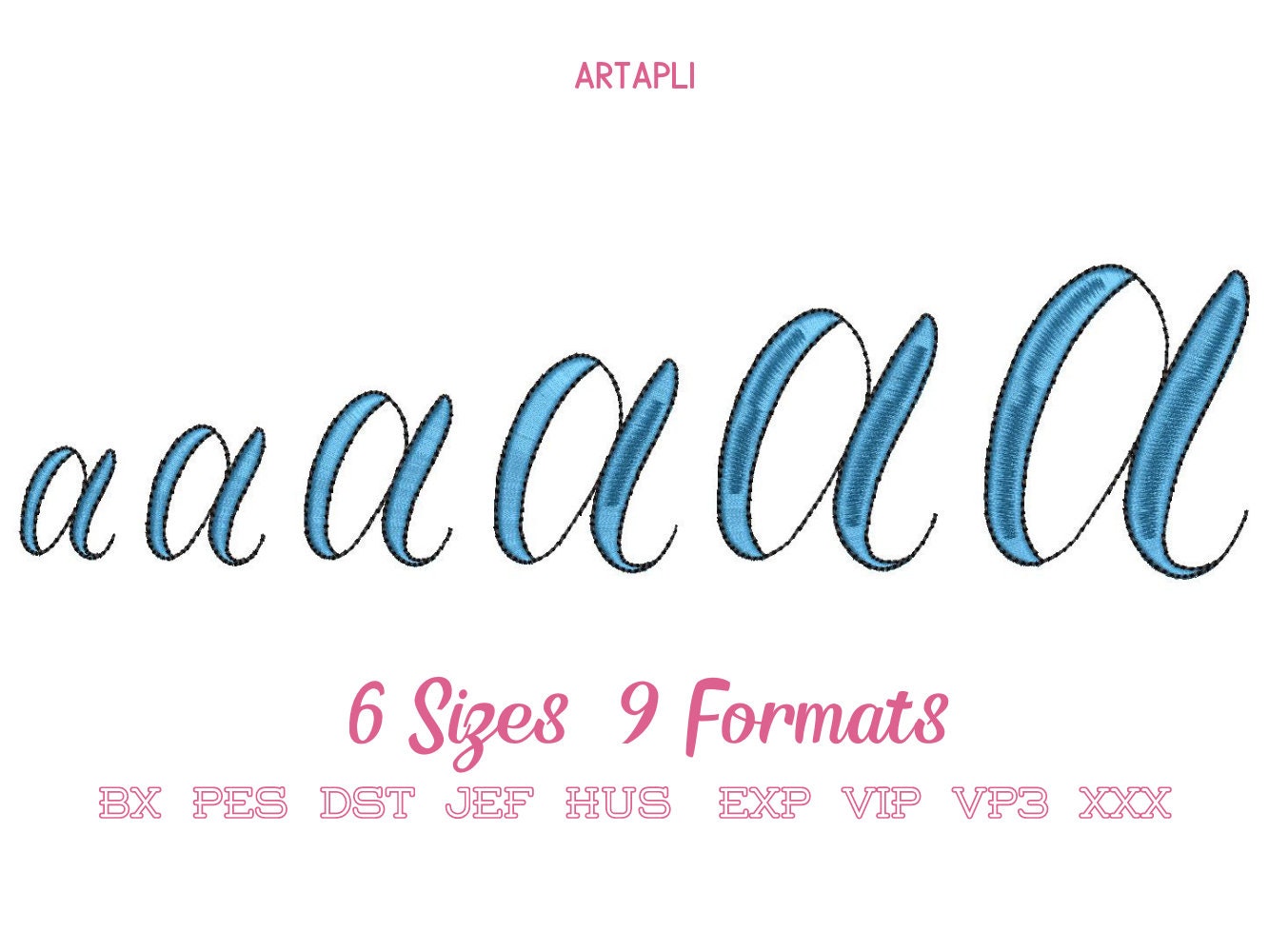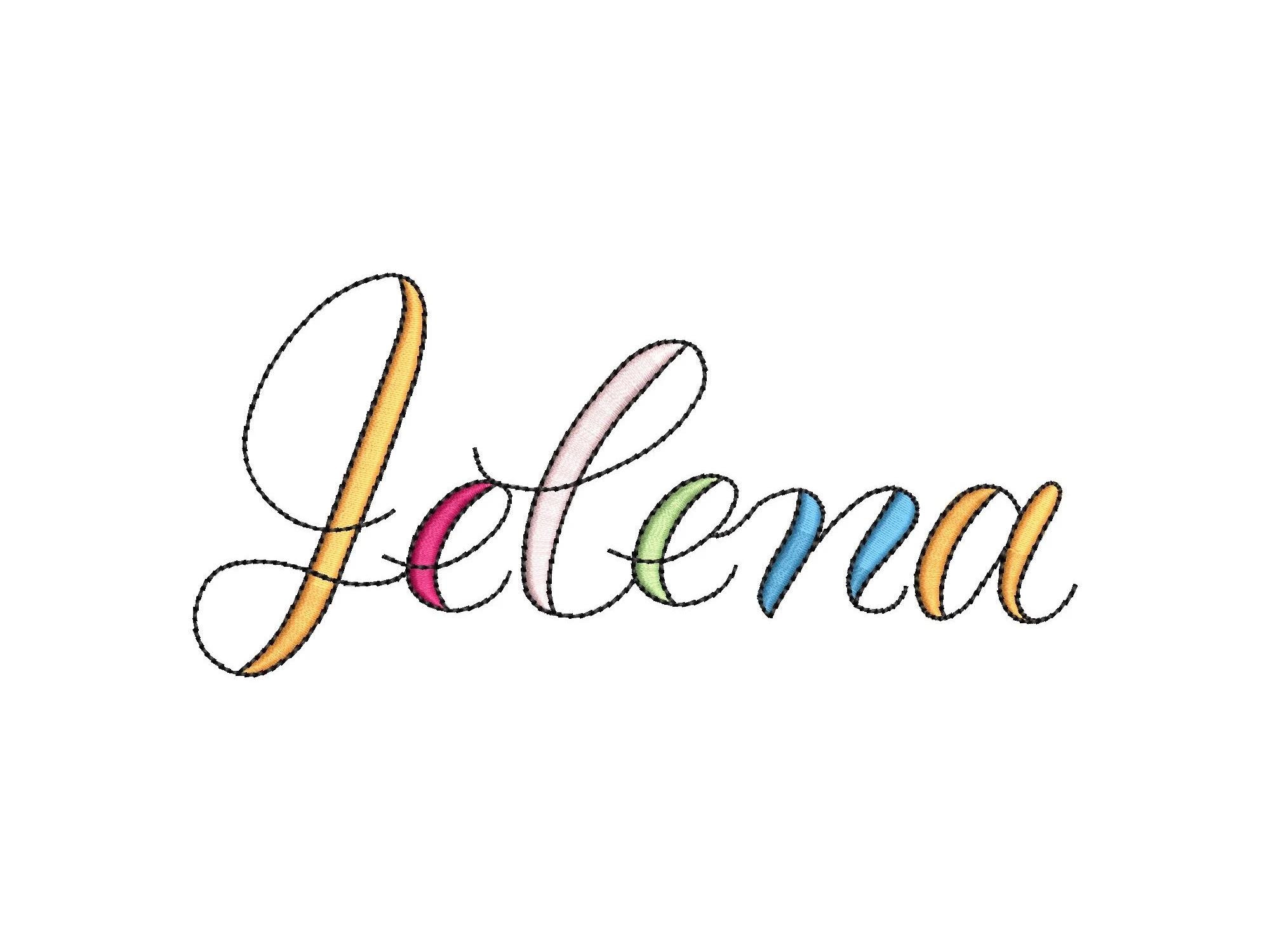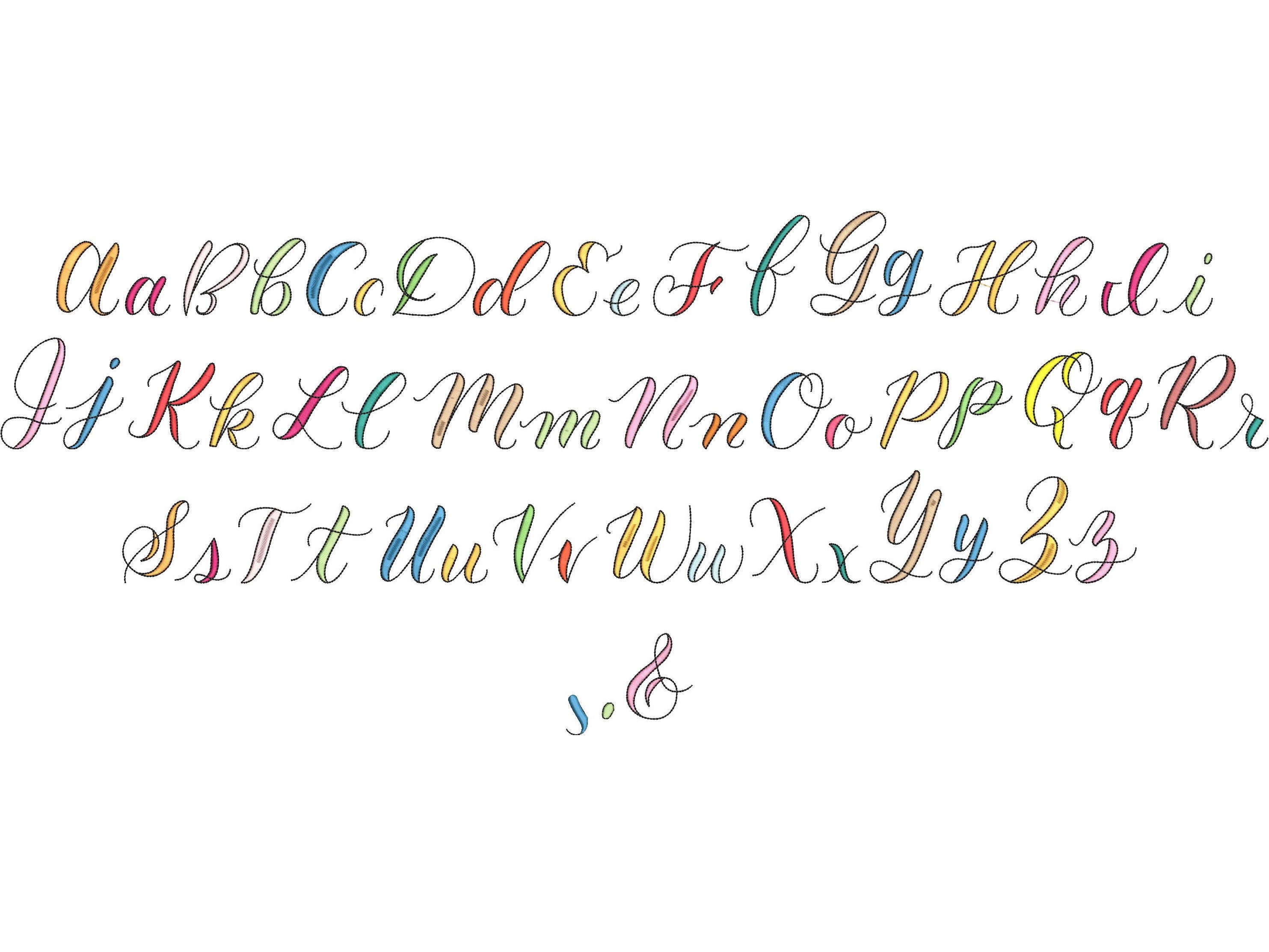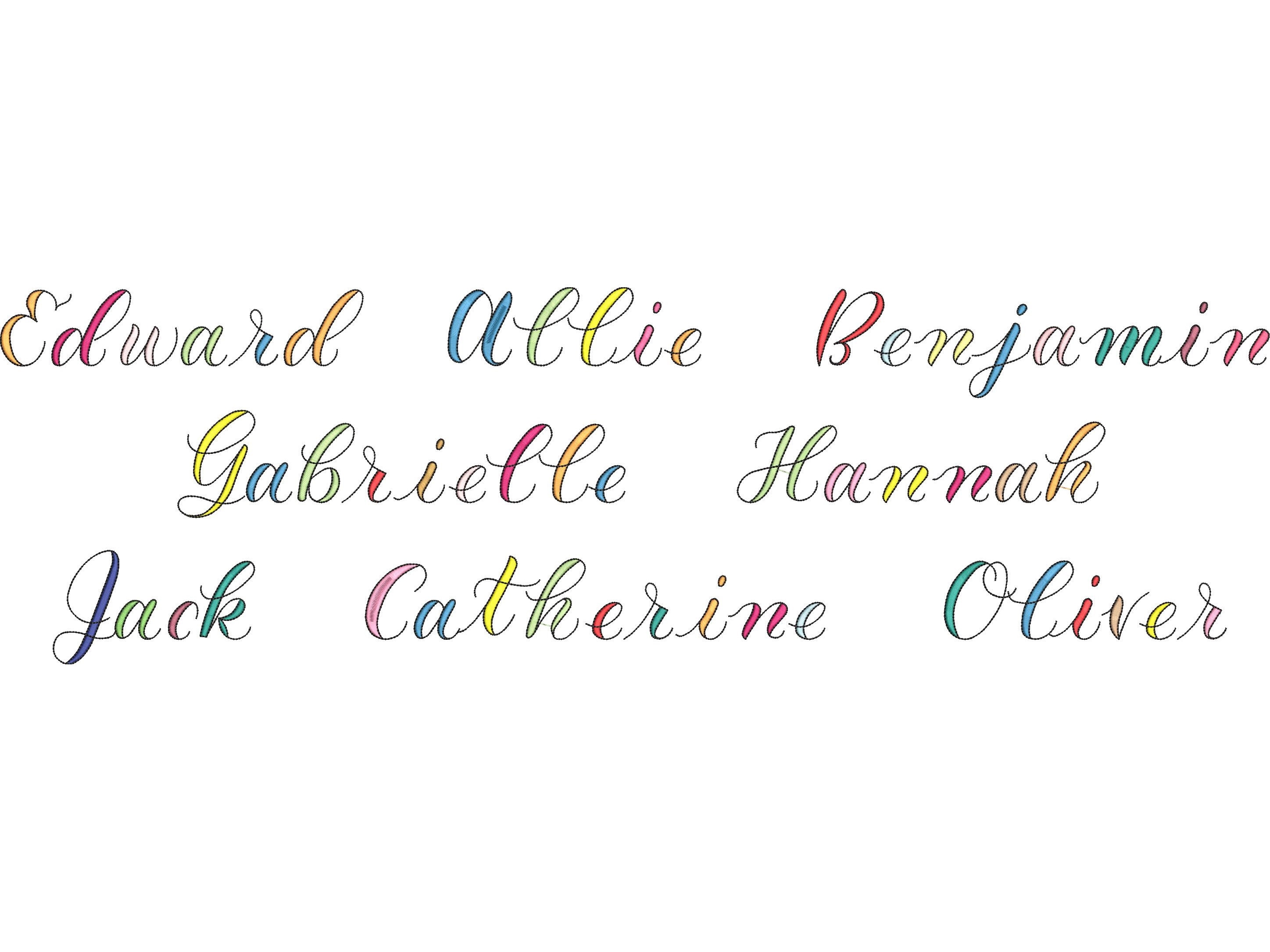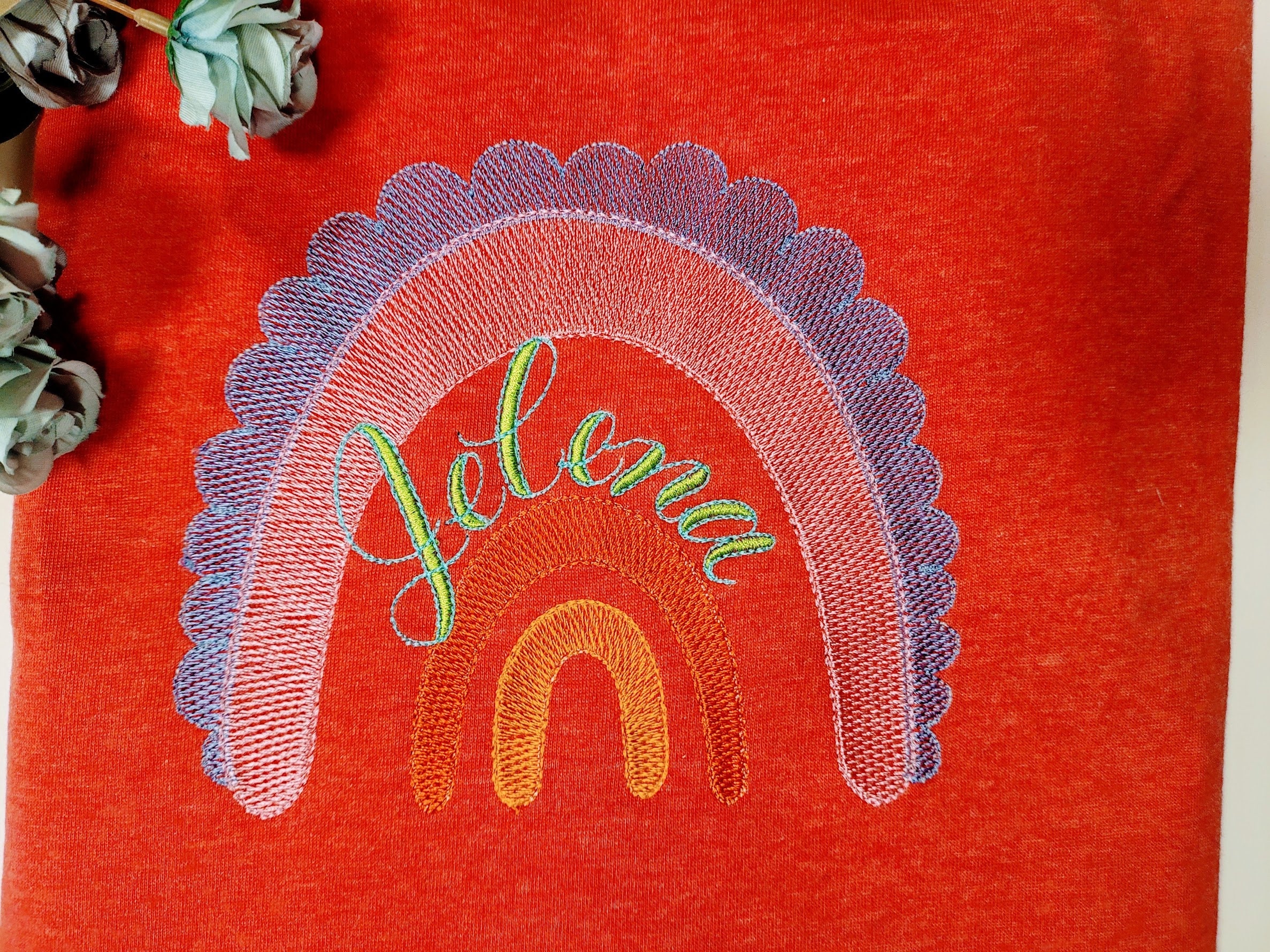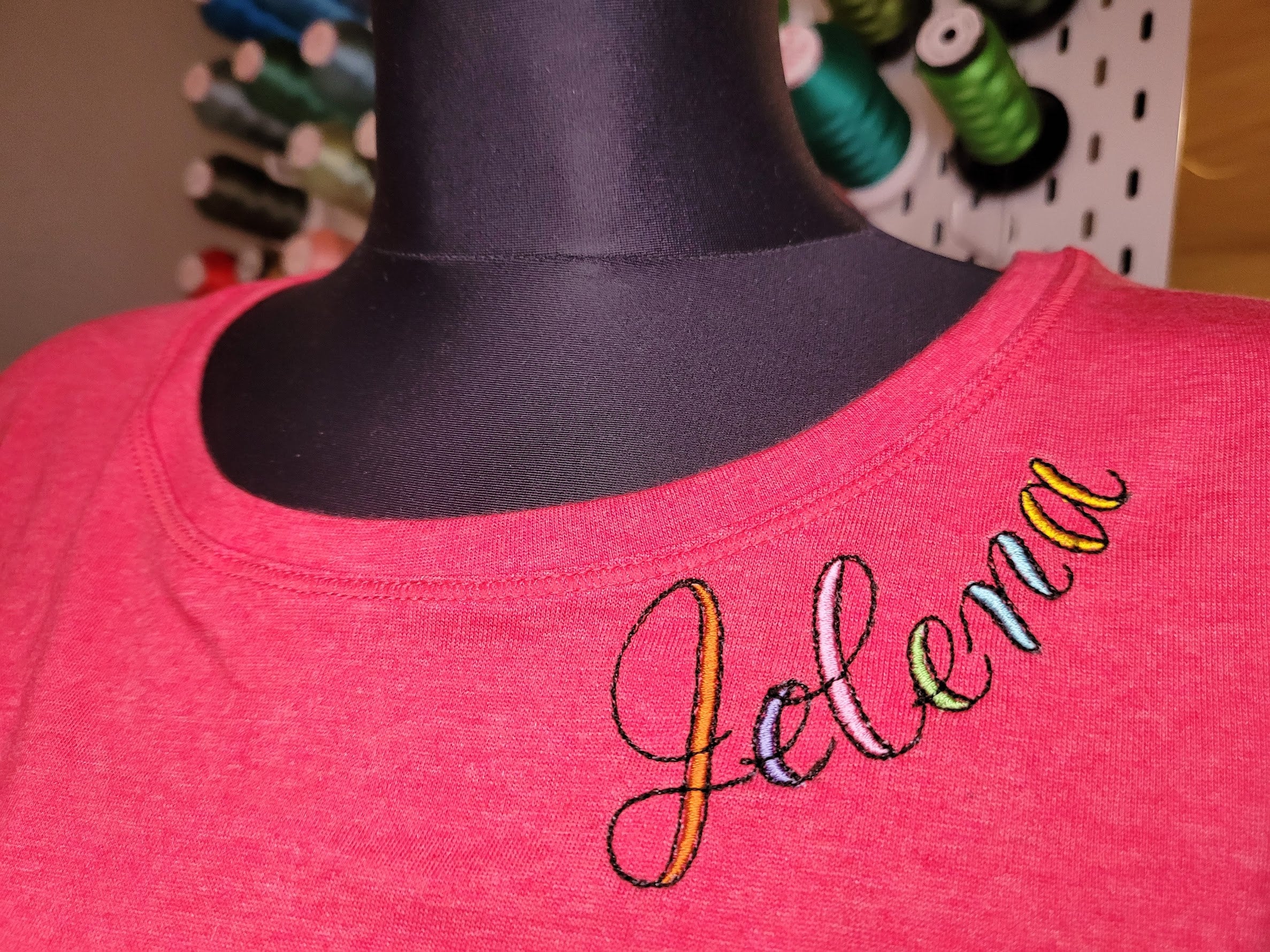
Quick Colorful Brush FONT machine embroidery designs in assorted mini sizes alphabet monogram name letters, playful kids name, BX included
Whole alphabet A-Z uppercase and lowercase letters, and punctuation . , &
I’m always looking for unique fonts and this one did not disappoint! Fabulous!